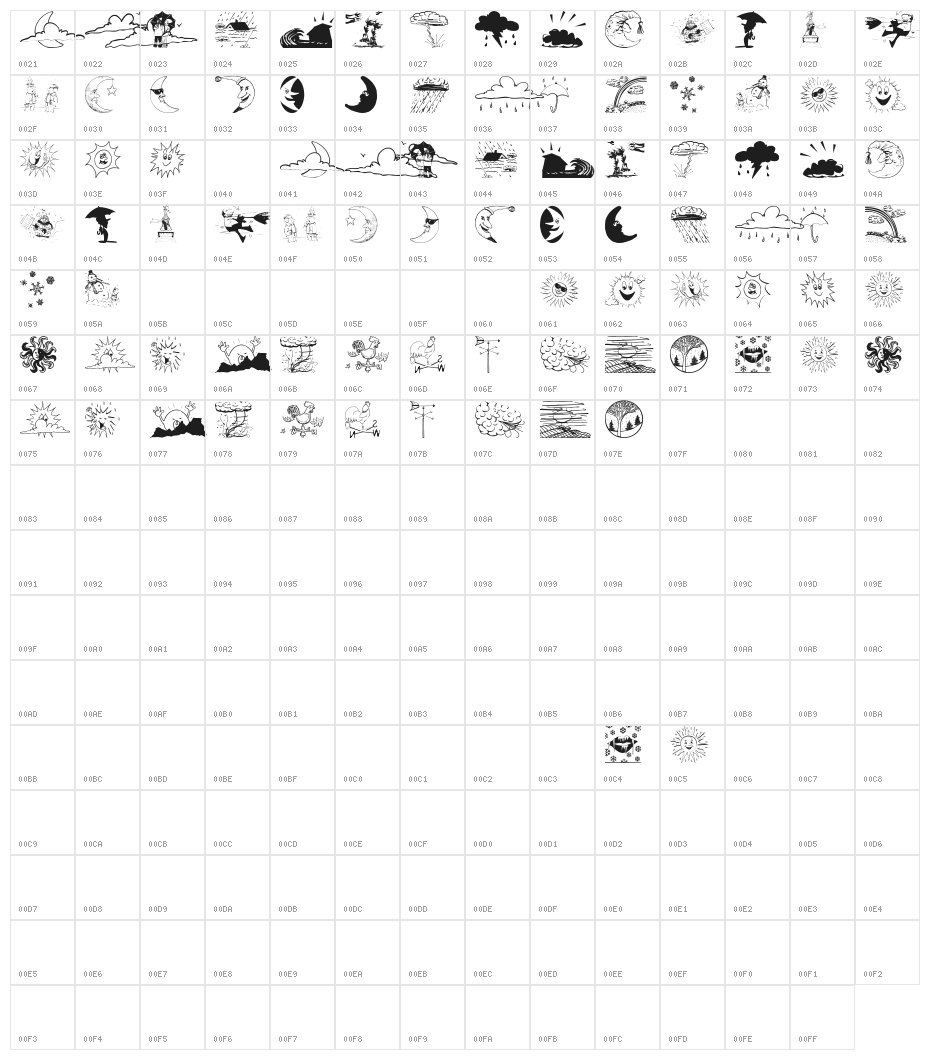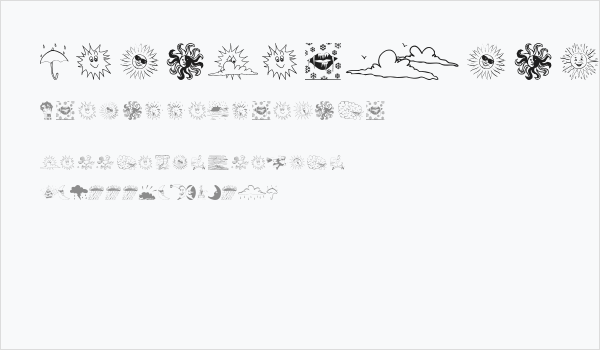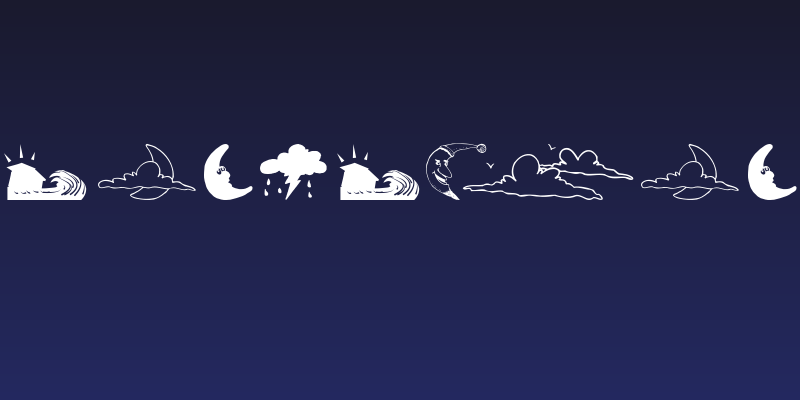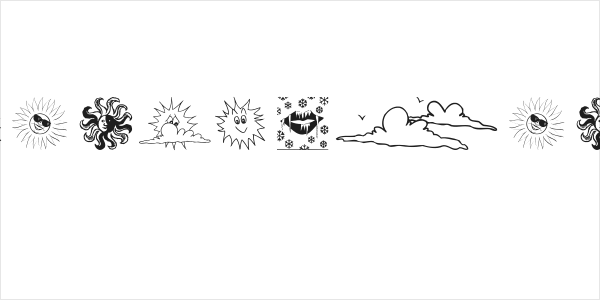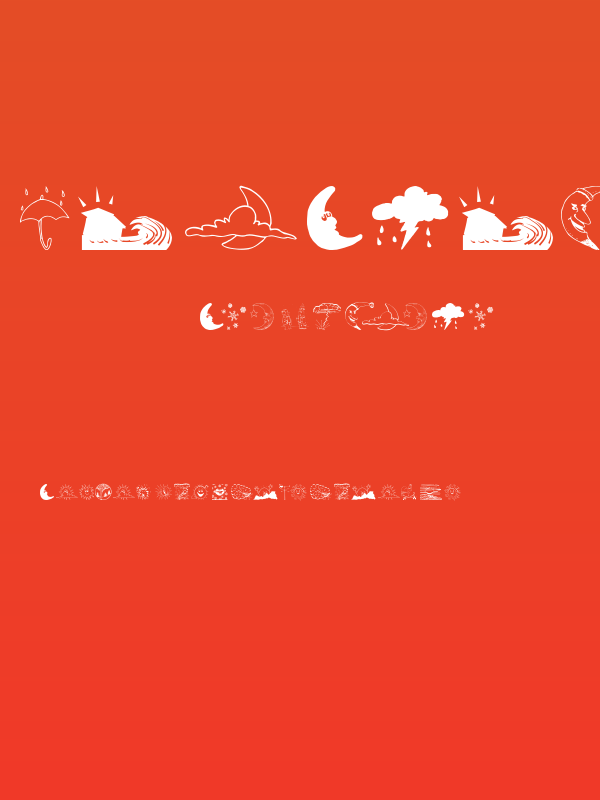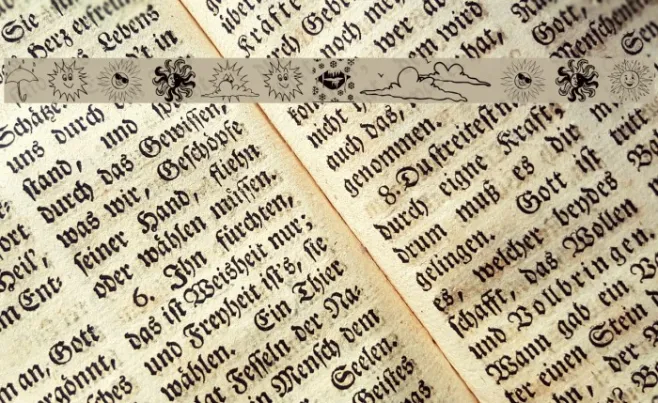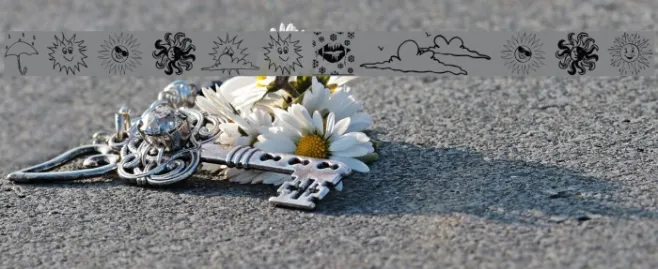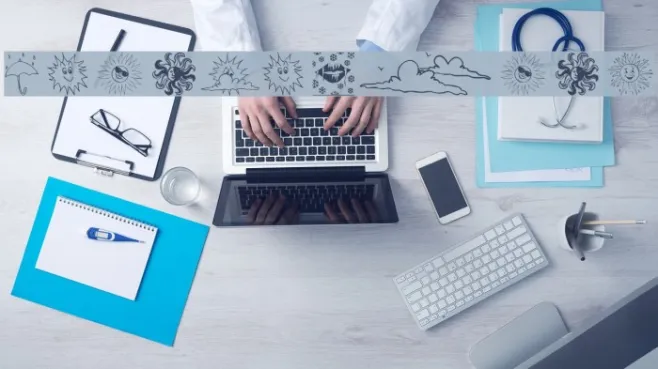
WeatherBats Font
WeatherBats Description
A decorative dingbat set featuring hand-drawn weather-themed illustrations, including clouds, sun, moon, rain, snow, wind, and various whimsical characters and scenes related to weather phenomena.
| Overall Style | Decorative, Whimsical, Hand-drawn |
| Use Case | Icons, Illustrations, Decorative elements |
| Proposed Projects | Children’s books, educational materials, weather apps, greeting cards, decorative posters, scrapbooking. |